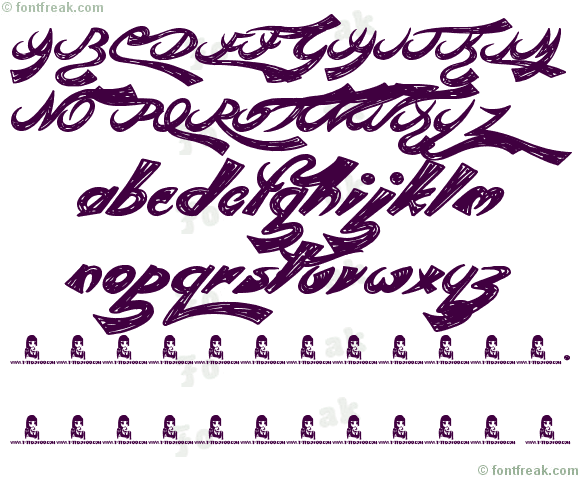
Rebel Beat
About Rebel Beat
Rebel Beat by Jonathan S. Harris is a striking display font that captures the essence of rebellious spirit with its unique handwritten style. This font exhibits a playful yet edgy aesthetic, characterized by its irregular stroke weights and dynamic curves. The contrast in the line thickness adds a sense of energy, making each letter feel alive and expressive. The spacing is intentionally varied, creating a sense of movement that draws the eye and adds character to any design.
This versatile font is perfect for a variety of creative projects. It shines in applications such as tattoo designs, where its bold and distinct appearance can convey personal stories and artistic flair. Rebel Beat is also an excellent choice for promotional materials, particularly for music events and festivals, where the energetic vibe of the font resonates with the themes of excitement and creativity. Additionally, it can enhance restaurant menus, especially for eateries with a contemporary or alternative ambiance, providing a touch of personality that sets the establishment apart. Graphic designers will find it particularly useful for branding projects, allowing them to evoke a sense of originality and nonconformity.
What truly sets the Rebel Beat font apart is its ability to convey emotion and attitude through typography. With its distinctive style and ample versatility, Rebel Beat font free download offers a fresh option for those aiming to inject a sense of individuality and boldness into their projects. This font is not just a typeface; it’s a declaration of creativity and rebellion.